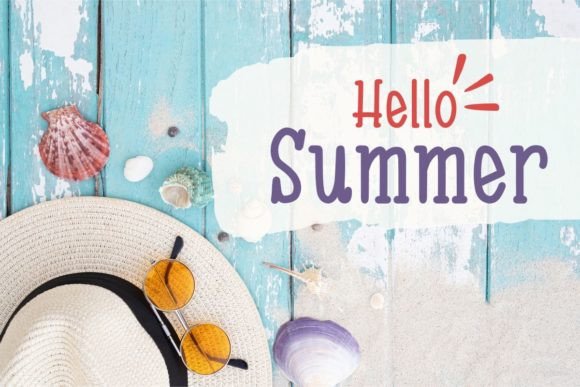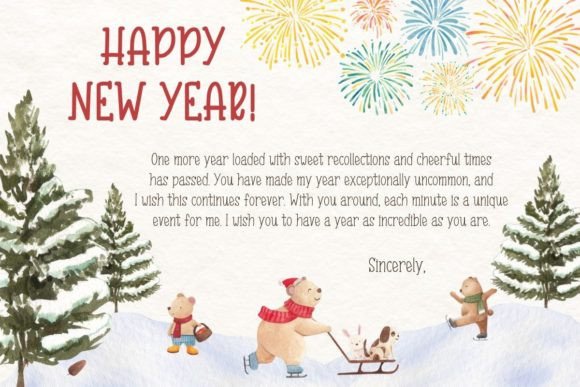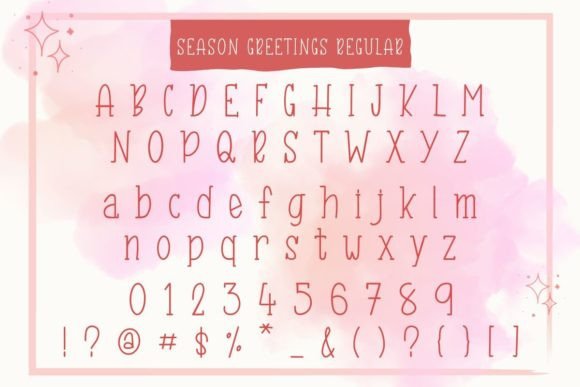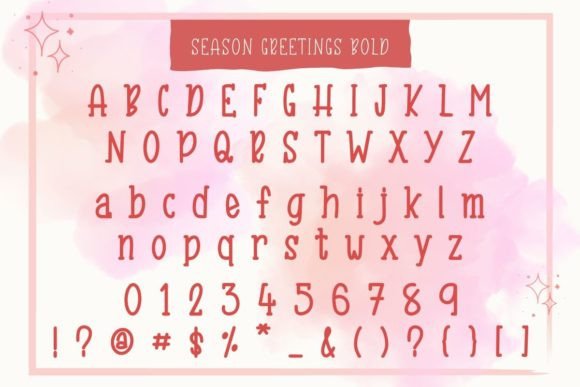
Introduction to Season Greetings Font
Season Greetings is a cute and modern serif font featuring handwritten thin characters.
Use this lovely font to create beautiful product packaging, Valentineโs Day invitations, wedding designs, social media posts, or anything else .